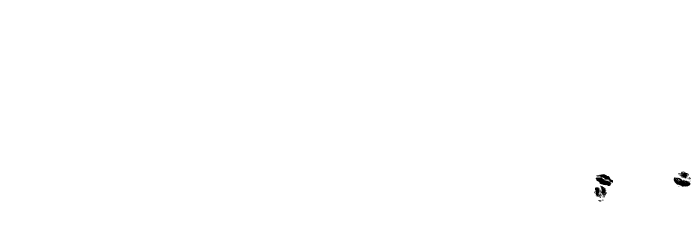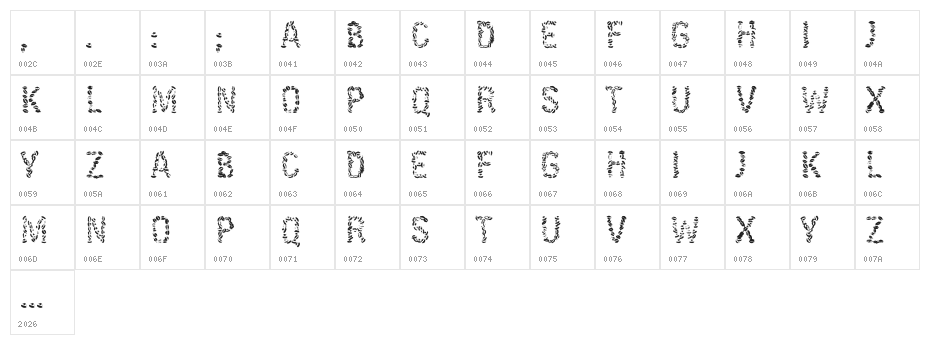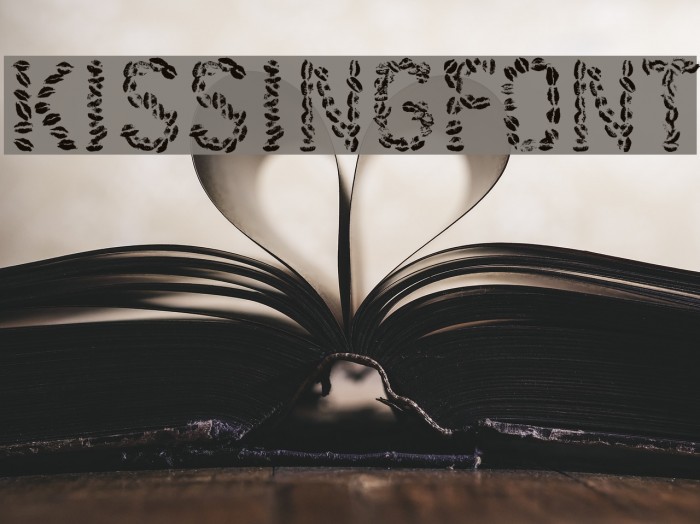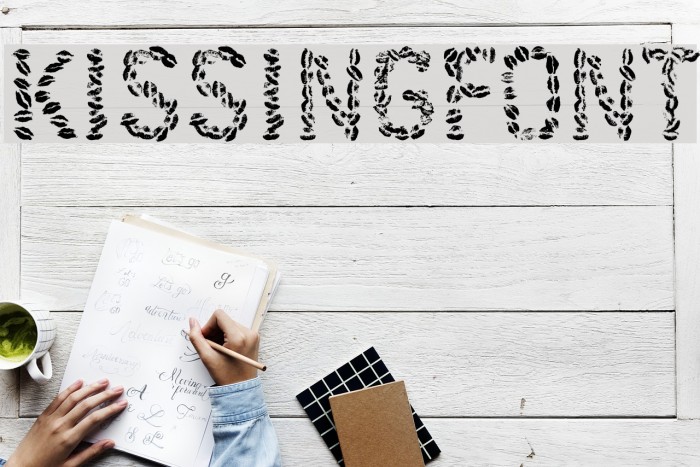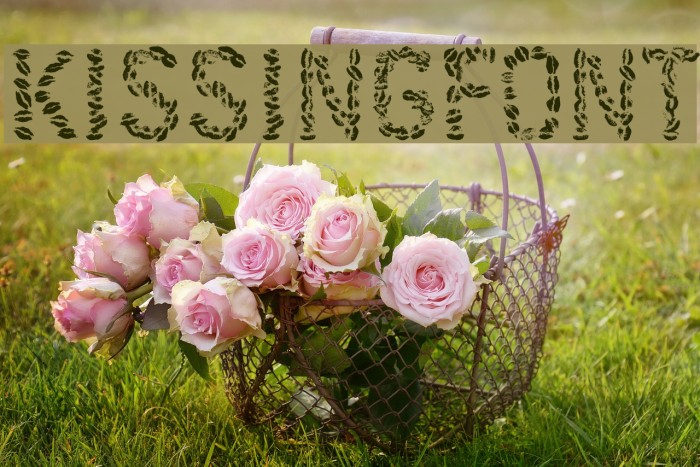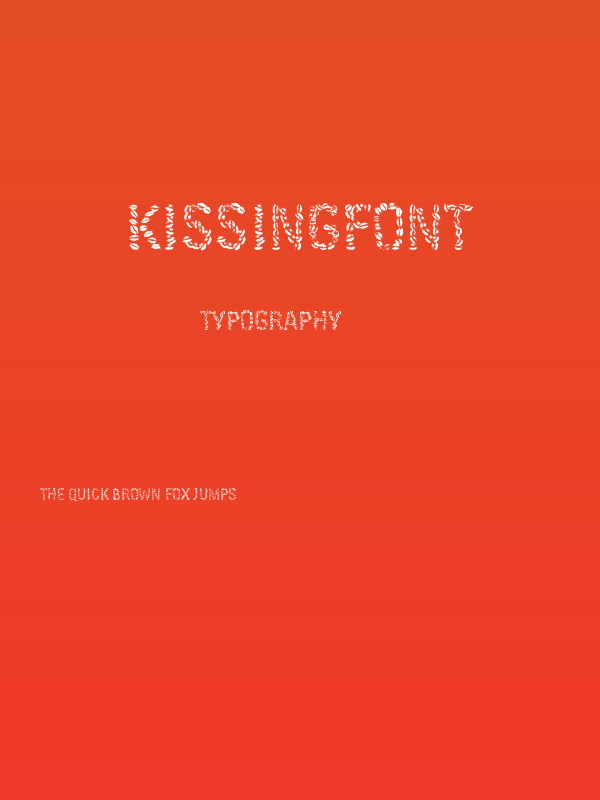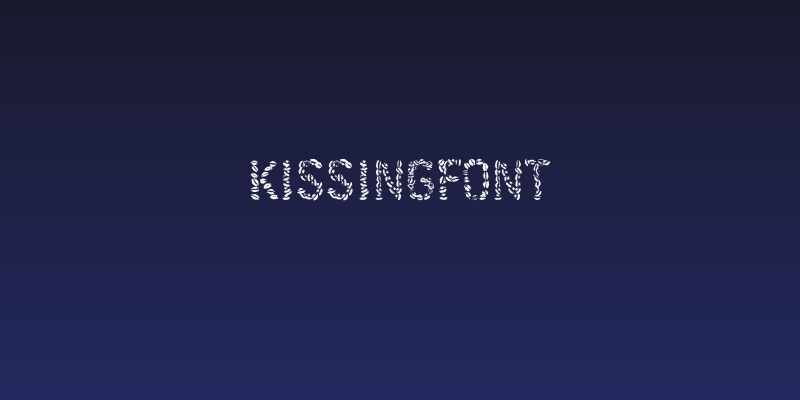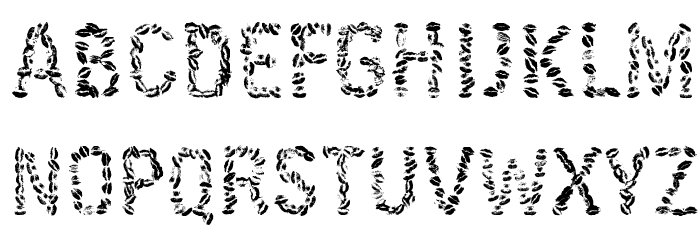
Kissingfont Font
Kissingfont Description
This font features a unique and playful design, characterized by its decorative pattern that resembles a series of small, repetitive shapes or textures. The uppercase and lowercase letters maintain a consistent style, with each character appearing as if it is composed of tiny, intricate elements that create a textured effect. The numbers and special characters follow the same design principle, ensuring uniformity across all glyphs. This font's distinct appearance makes it stand out, offering a creative twist to traditional typography.
| Use Case | Logos, Posters, Creative projects |
| Proposed Projects | Ideal for creative projects such as greeting cards, posters, or branding materials that require a unique and eye-catching typeface. |